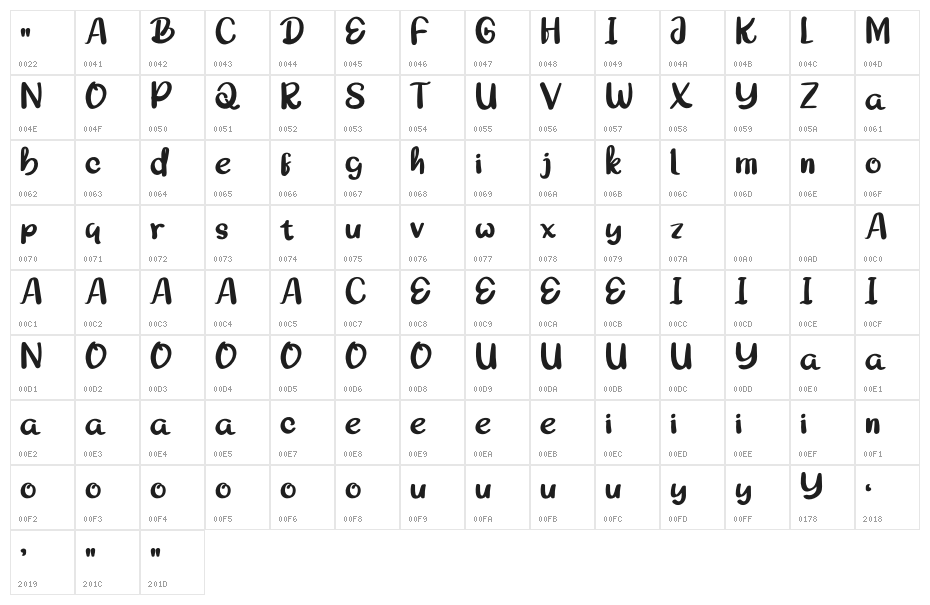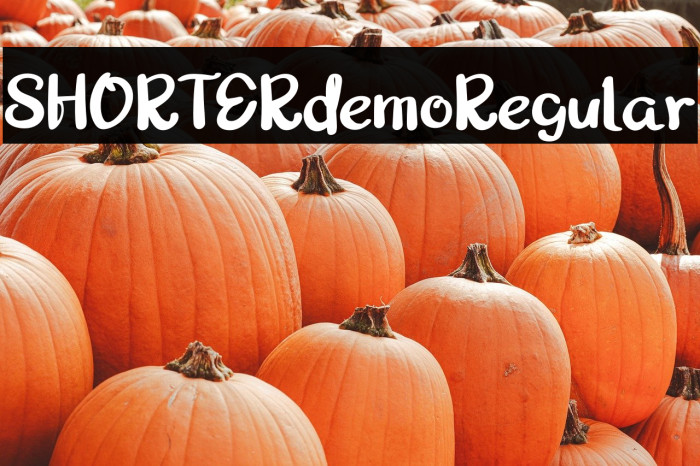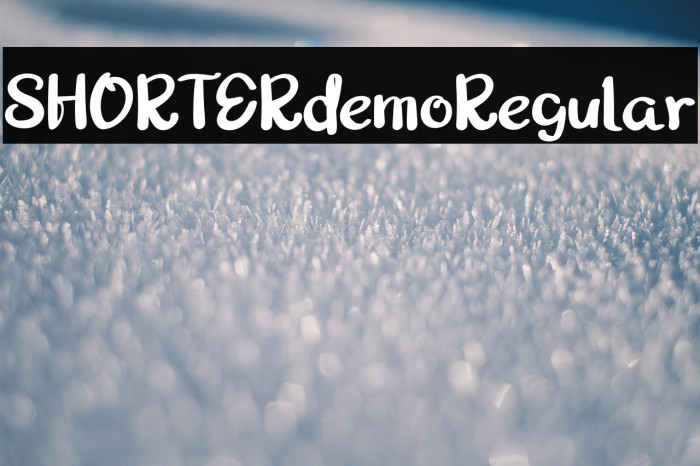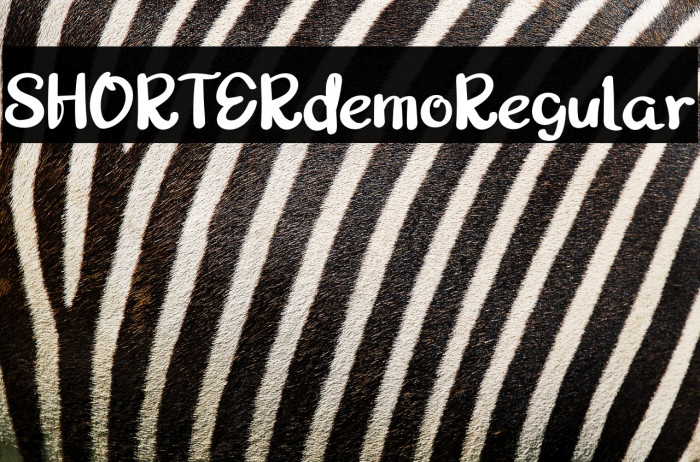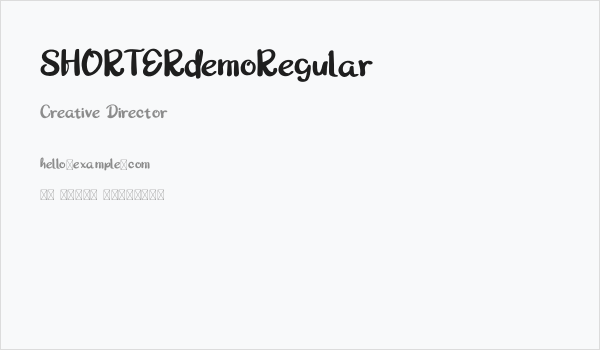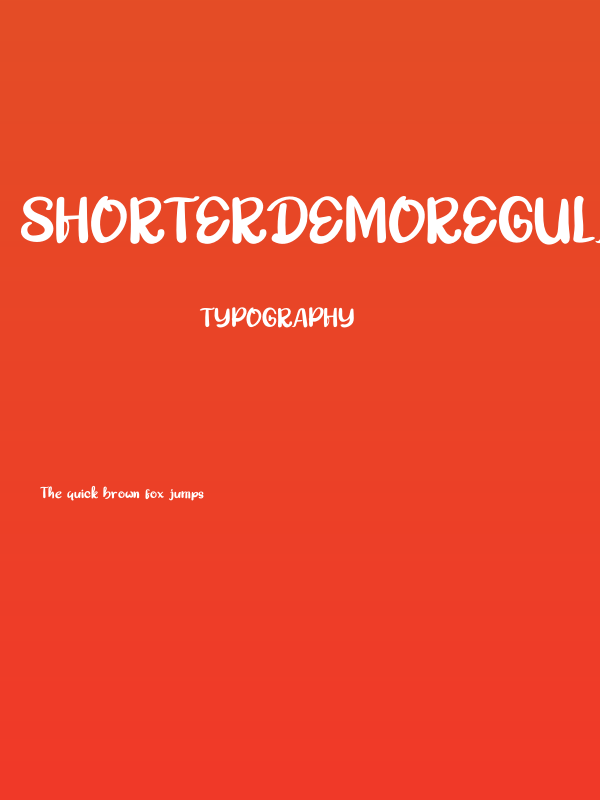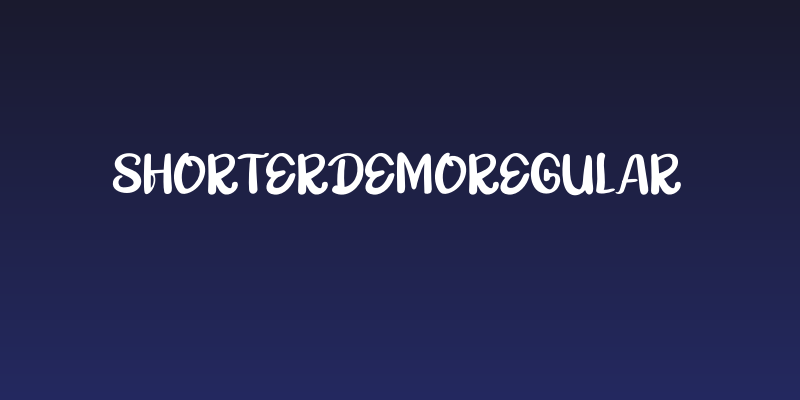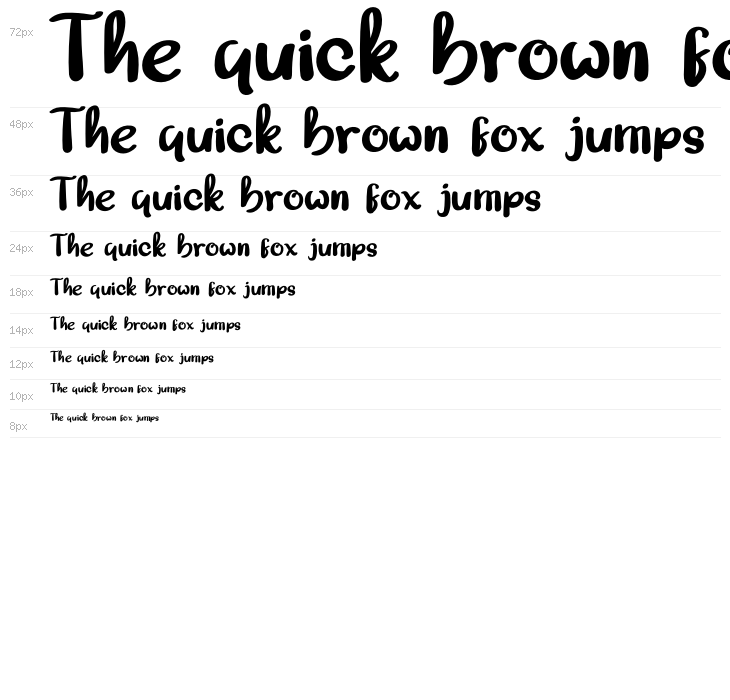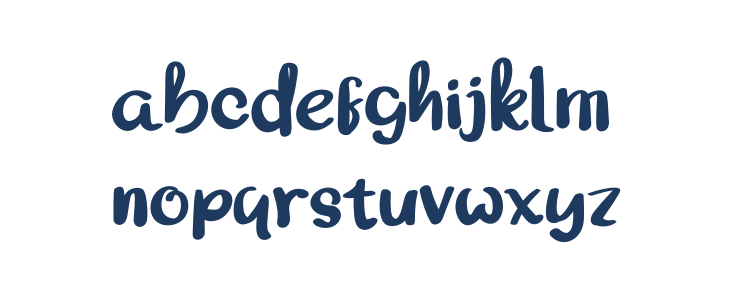
SHORTERdemoRegular Font
SHORTERdemoRegular Description
This font features a bold and playful style with a handwritten appearance. The uppercase letters are rounded and slightly whimsical, while the lowercase letters maintain a consistent flow with a touch of flair. The strokes are thick, providing a strong visual impact, and the overall design is casual yet expressive. The font's unique character shapes, such as the distinctive 'Q' and 'g', add personality and charm. It is well-suited for creative projects that require a friendly and approachable aesthetic.
| Overall Style | Playful, Casual |
| Use Case | Headlines, Logos, Creative projects |
| Proposed Projects | Ideal for greeting cards, children's books, playful branding, and creative posters. |